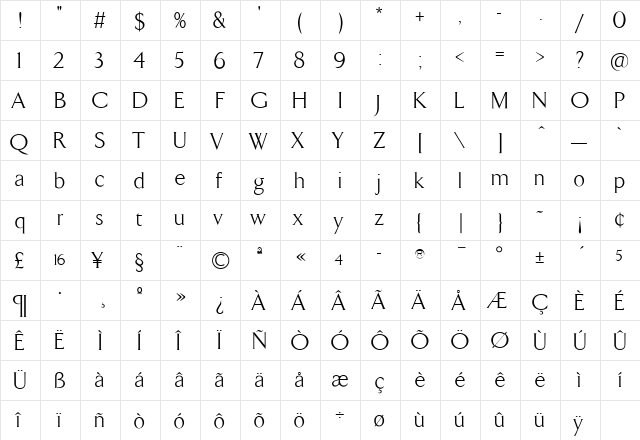
TFArrow Light
Design Context for TFArrow Typeface
TFArrow is a composed and adaptable typeface that performs quietly and consistently across a wide range of design contexts. Its slender proportions lend an understated elegance to any composition.
Pro Tip: Pair TFArrow with a font of contrasting weight or personality to build a more expressive typographic hierarchy.